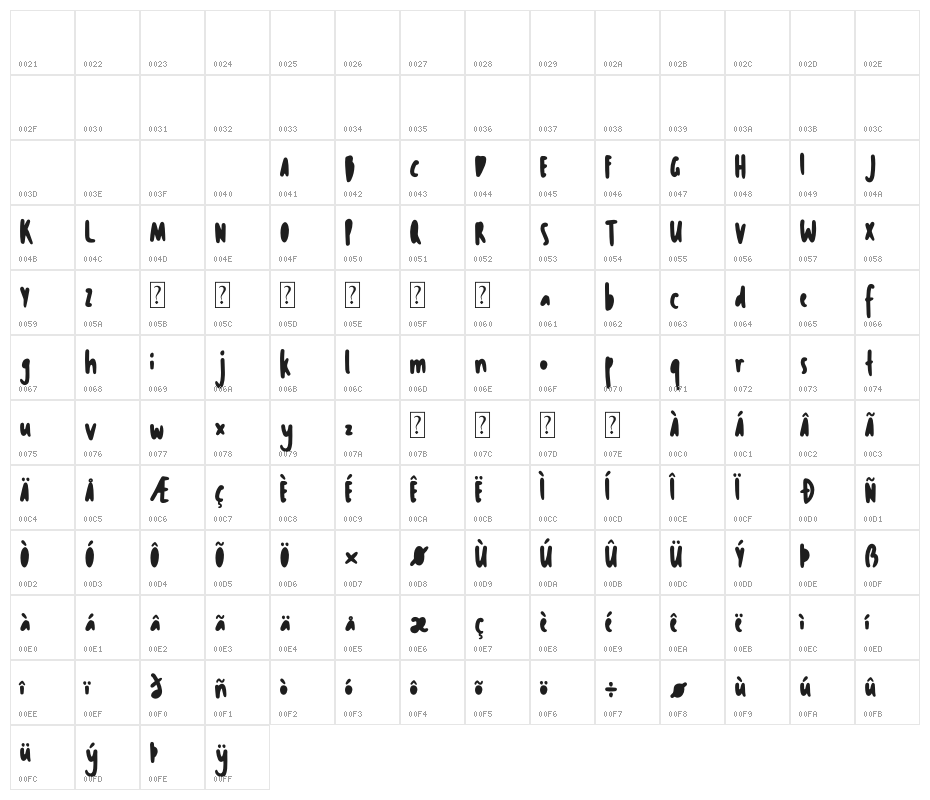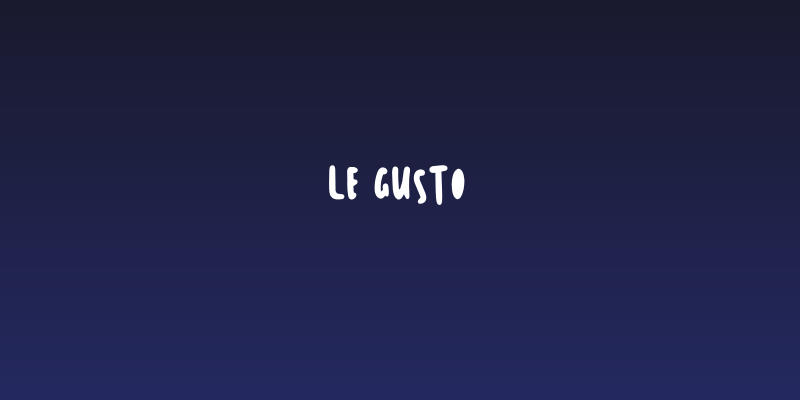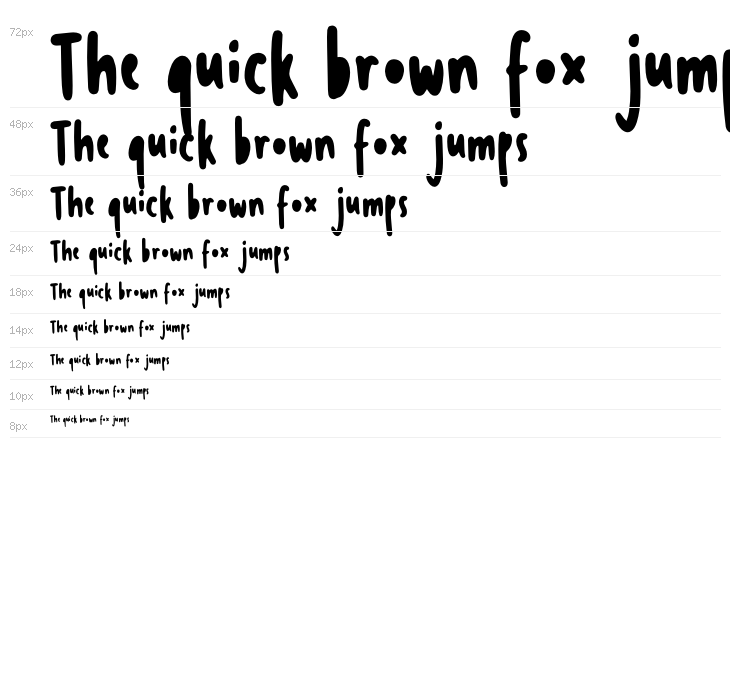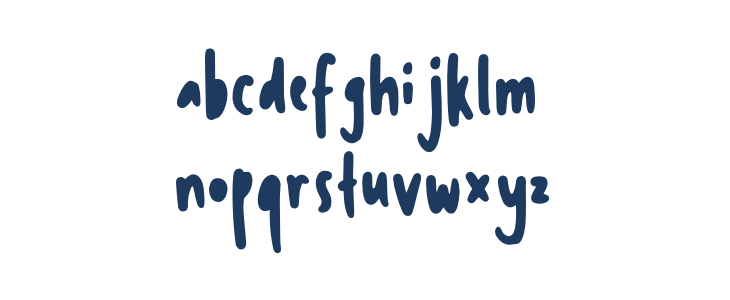
Le Gusto Font
Le Gusto Description
This playful and bold font features a hand-drawn aesthetic with thick, rounded strokes that give it a friendly and approachable feel. The characters are slightly irregular, adding a whimsical touch that enhances its casual style. The uppercase and lowercase letters maintain a consistent weight, providing a cohesive look across the alphabet. The font's organic shapes and smooth curves make it ideal for projects that require a personal and informal tone. Its unique style is perfect for creative designs, adding a touch of personality and charm.
| Proposed Projects | Ideal for children's books, greeting cards, playful branding, and creative posters. |